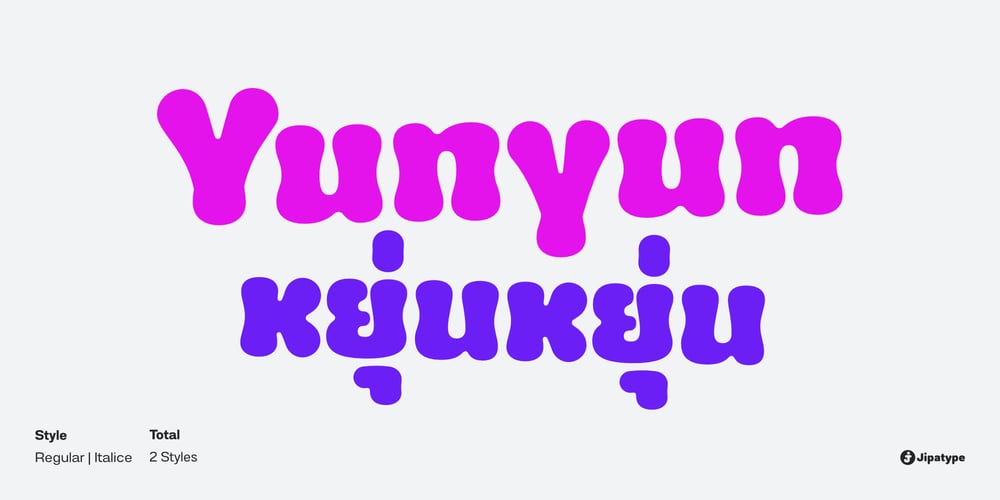
Yunyun
Yunyun font
Yunyun Font Family was designed by Anupap Jaichumnan and published by Jipatype. Yunyun contains 2 styles and family package options. Yunyun, a bold, rounded, and fun display font that is perfect for about teenagers project, with thick strokes and smooth, curved lines, this font conveys a sense of warmth and approachability. This font is perfect for branding, advertising, and marketing materials targeting teenagers.One of the best features of Yunyun is that it supports multiple languages, making it perfect for use in global projects. It also includes many OpenType features such as Small Caps, this feature will add more variations design to your project.Yunyun’s design is also perfect for creating eye-catching and attention-grabbing headlines, posters, flyers, and packaging designs. This font is also suitable for more artistic and creative projects like book covers, album covers, and more.Whether you’re a designer, a marketer, or just someone looking for a fun, teenager-friendly font, Yunyun is an excellent choice.